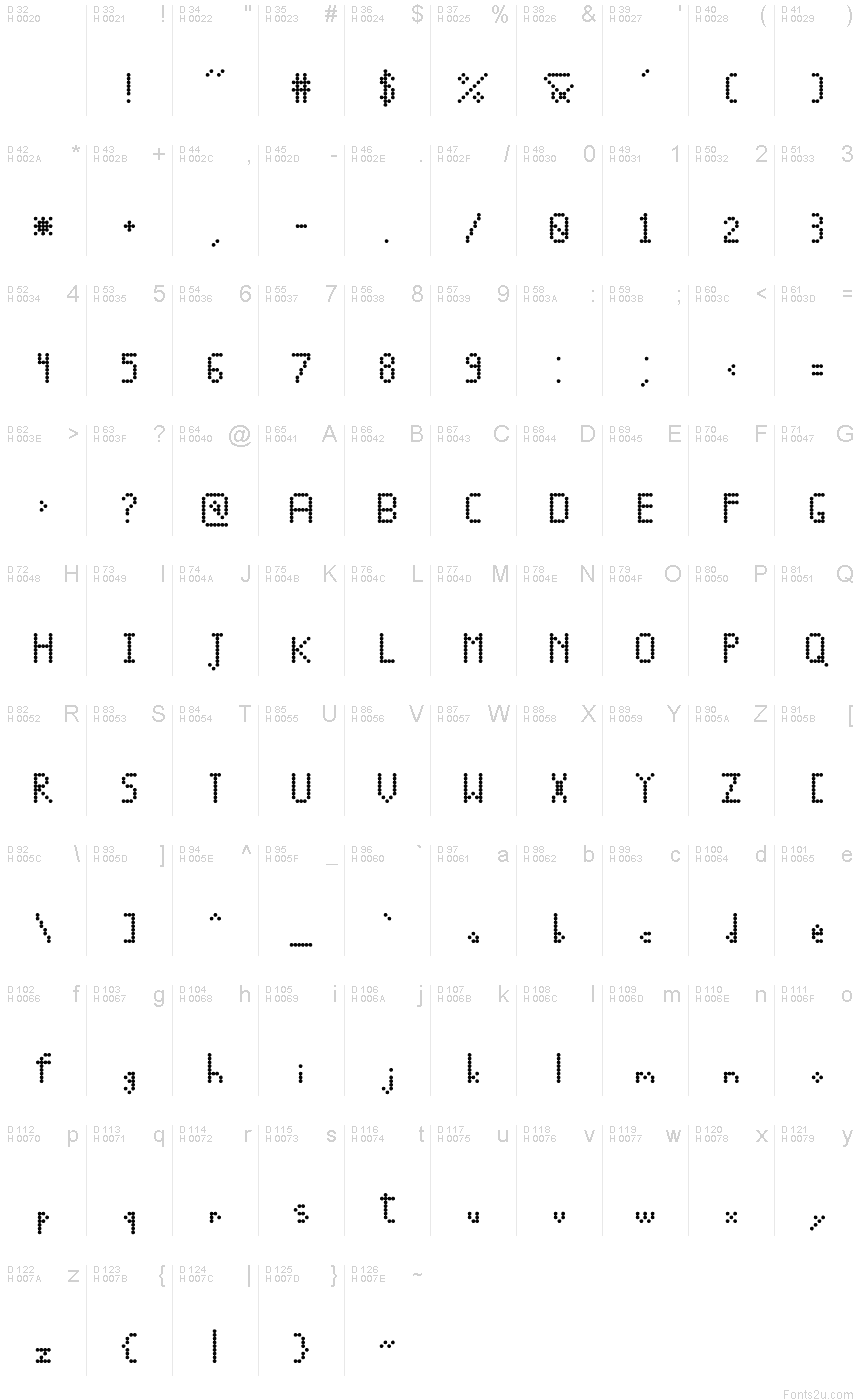
LED Board by electroduck of FSI FontShop International GmbH is a free dot-matrix pixel font built from evenly spaced circular marks. Its squared capitals recall electronic scoreboards and early public information displays. The open gaps between dots keep the construction crisp and unmistakably mechanical.
Arcade venues and technology brands can use it for logos, digital graphics, and event posters that borrow the direct look of illuminated signs. It is especially convincing for gaming and retro-electronics themes, where the dotted letters can echo control panels, score counters, and indicator lights.